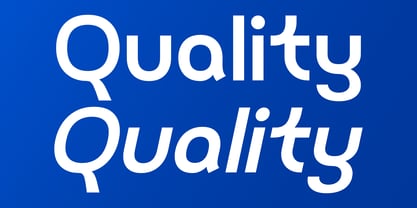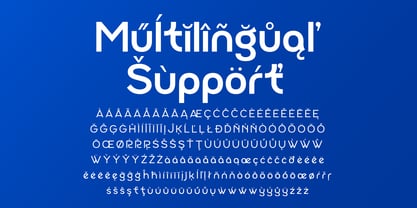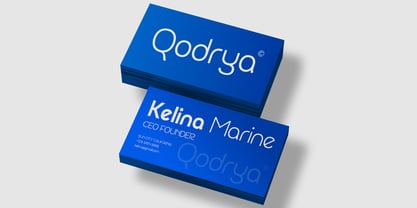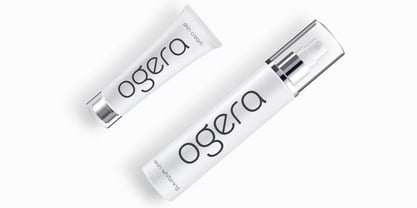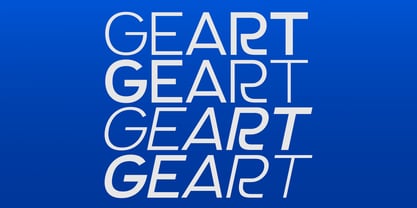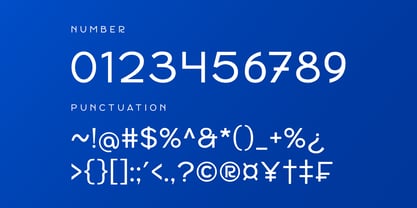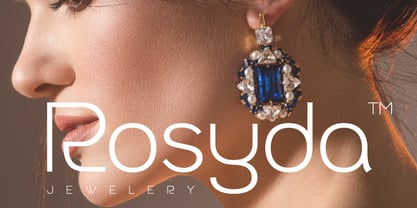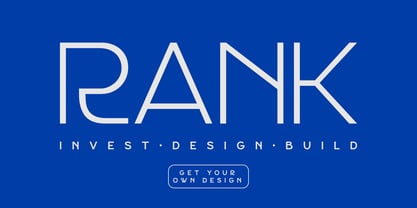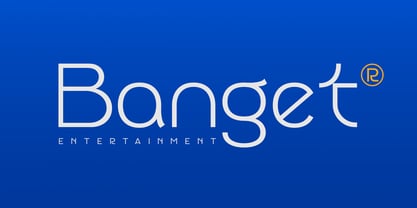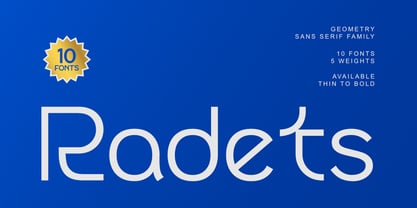
Radets
The Radets Font Family was designed by Saiful Anwar and published by Sealoung. Radets contains 10 styles and family package options.
Radets – Geometry Sans Serif Family
Radets is a geometric sans serif font family designed to balance modern simplicity with versatile functionality. Featuring precise letterforms, clean lines, and harmonious proportions, Radets brings a professional and timeless feel to any creative project.
With a full range of weights from Thin to Bold, Radets allows you to create anything from light minimal designs to bold, striking visuals. Its geometric structure makes it a perfect choice for modern branding, logos, editorial layouts, packaging, and digital projects that demand clean and elegant typography.
Features:
• Modern geometric sans serif family
• Full weight range from Thin to Bold
• Ideal for logos, branding, editorial, and packaging
• Complete set of uppercase, lowercase, numerals, and punctuation
• OpenType features for advanced typography control
• Extensive multilingual support
Elevate your visual identity with Radets – the geometric sans serif family that combines precision, modern style, and versatility.